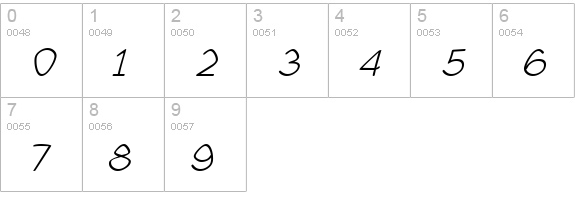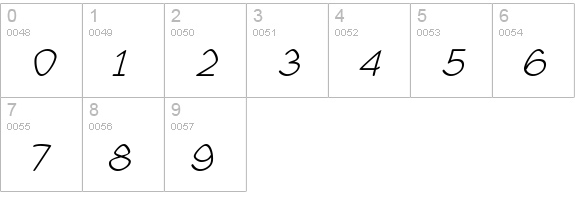
KampFriendship Italic Font Details
KampFriendship Italic is a distinctive, italic variant in the KampFriendship typeface family \xE2\x80\x94 well suited to design and typography projects.
Introducing KampFriendship Italic, a captivating and versatile font that exudes an aura of warmth and companionship. Designed with a touch of elegance and a dash of playfulness, this typeface effortlessly combines the grace of italic letterforms with a friendly and approachable appeal. KampFriendship Italic is perfect for projects that require a personal touch. Whether you're designing invitations for a gathering of loved ones, crafting heartfelt messages, or adding a touch of flair to your social media posts, this font will bring a sense of genuine connection to your creations. With its smooth and flowing curves, KampFriendship Italic adds an inviting touch to any design. It captivates readers with its unique blend of classic and contemporary elements, making it suitable for a wide range of applications, including branding, packaging, headlines, and more. One of the most enticing aspects of KampFriendship Italic is that it is freely available to download at FontsMarket.com. Yes, you heard it right! You can access this extraordinary font without breaking the bank. Its availability for free allows you to experiment, explore, and infuse your projects with a touch of elegance without any financial constraints. So why wait? Enhance your designs with the charm and allure of KampFriendship Italic. Download it now from FontsMarket.com and let your creativity soar. Discover the power of this remarkable font and watch as it elevates your projects to new heights. Get ready to forge lasting connections through the written word, all with the help of KampFriendship Italic.